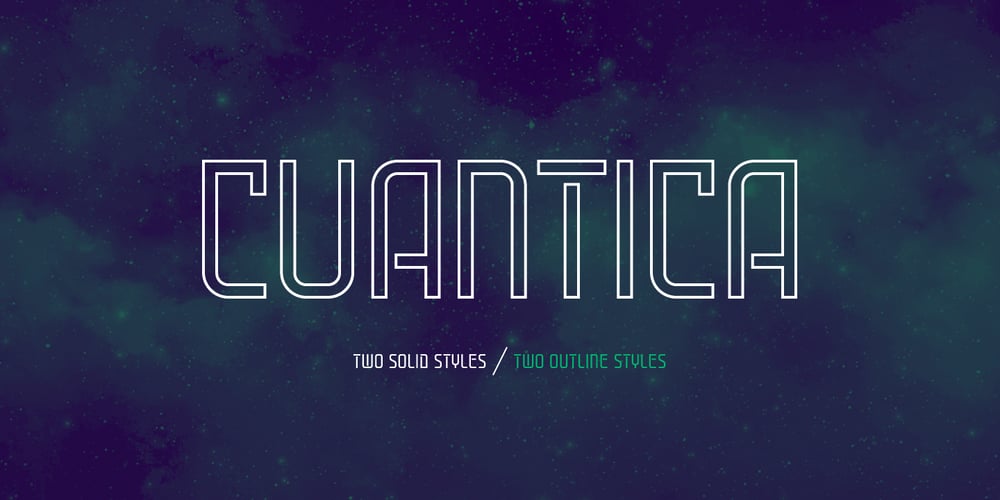
Cuantica
Cuantica font
Cuantica Font Family was designed by Pablo Balcells and published by Graviton. Cuantica contains 4 styles and family package options. Cuantica font family has been designed for Graviton Font Foundry by Pablo Balcells in 2012. It is display typeface with a geometric look. Cuantica consists of 4 styles.